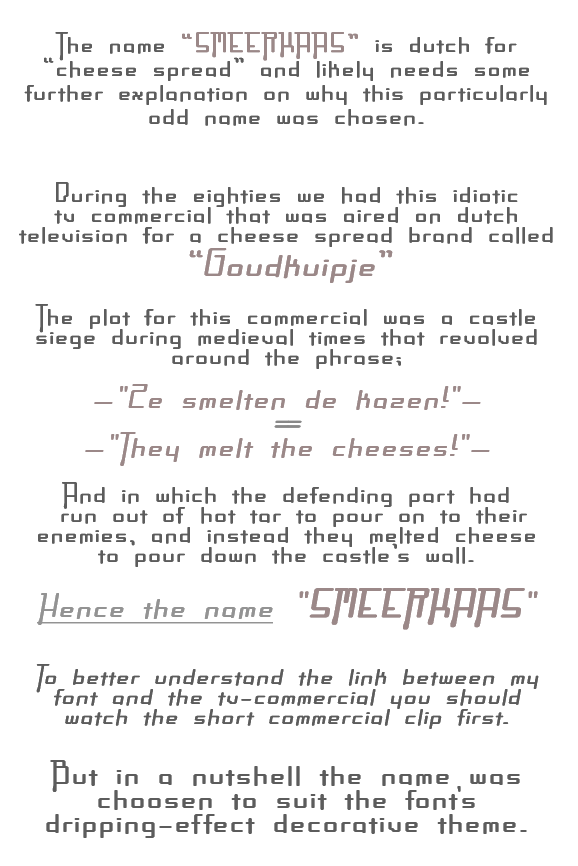
SMEERKAAS - Decorative, squarish geometric and rounded Art Nouveau display type
Modern typeface design influenced by Art Nouveau typography.
At its core it is a plain geometric style, and the real breakaway towards a more decorative 'Art Nouveau' inspired style starts with the elongated letterforms and their irregular descending elements. These give it a slight more interesting and dynamic flow that somewhat resembles a calligraphic or handmade look. Some of the descending elements in the uppercase string slightly differ in length and are more decorative, mimicking a dripping-like effect.
Unlike with a more traditional Art Nouveau lettering, the geometric backbone of this design keeps it quite futuristic looking, and actually provides a nice transitional blend of styles.
It works well at pretty much any point size, even at the very smallest, but keep in mind that the font wasn’t meant for large body style text, and is best used in short decorative setting.
Cap height: 12 units
Body height: 17 units
Point size (Em): 18 units
The name “SMEERKAAS” is dutch for “cheese spread” and it likely needs some further explanation on why this particularly odd name was chosen.
During the eighties we had this idiotic tv commercial that was aired on dutch
television for a cheese spread brand called “Goudkuipje”.
The plot for this commercial was a castle siege during medieval times, and it revolved around the phrase;
― "Ze smelten de kazen!" which translates to; ― "They melt the cheeses!"
The plot further enfolds into the defending part that had run out of hot tar to pour onto their enemies, alternatively they started melting cheese, so that they would be able to pour that down the castle's wall.
To better understand the link between my font and the tv-commercial you should watch the short commercial clip first.
But in a nutshell, the name was sort of choosen as a meme to suit the font's dripping-effect decorative theme.
Okay. I fully completed shaping for this today, everything is 99.9% -Bézier like smooth and rounded. To get a real appreciation for this its best to zoom in max. to reveal the soft shapes.